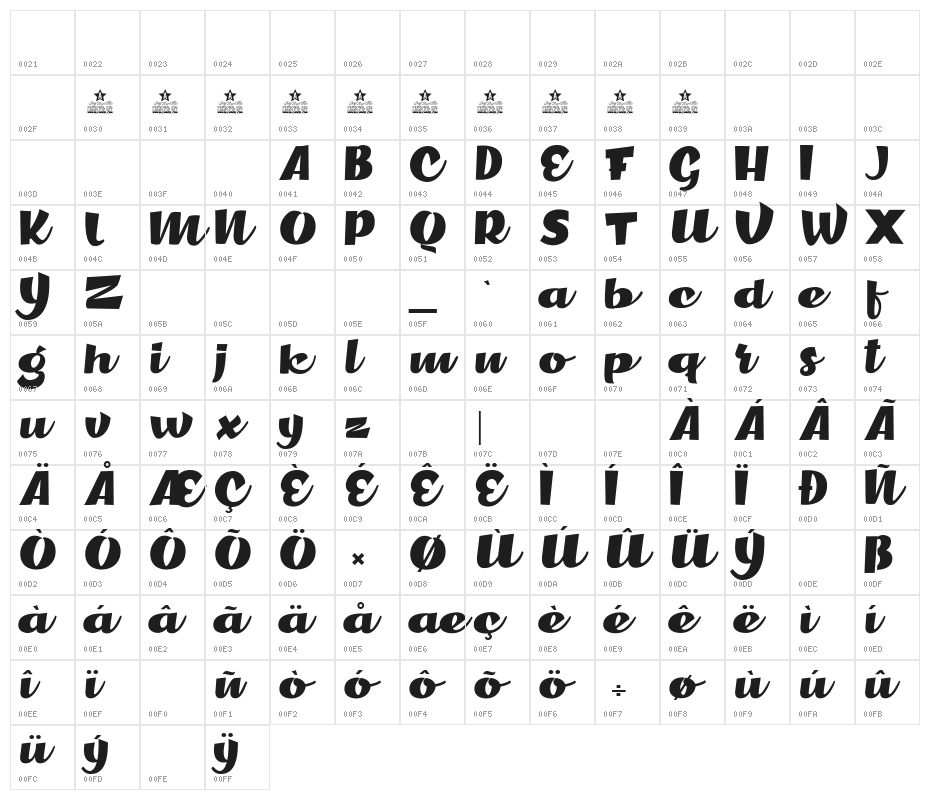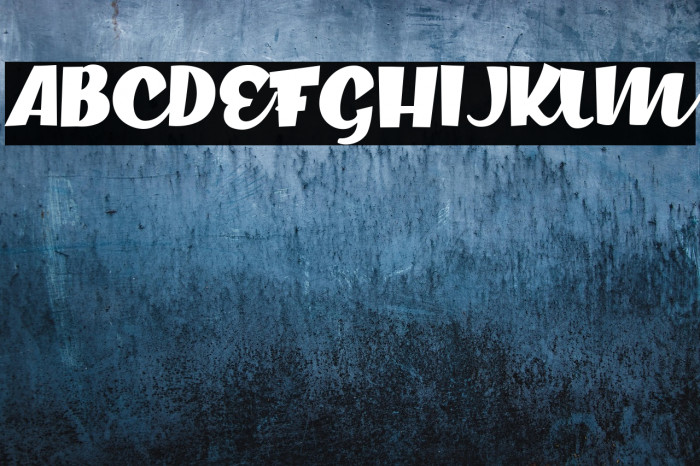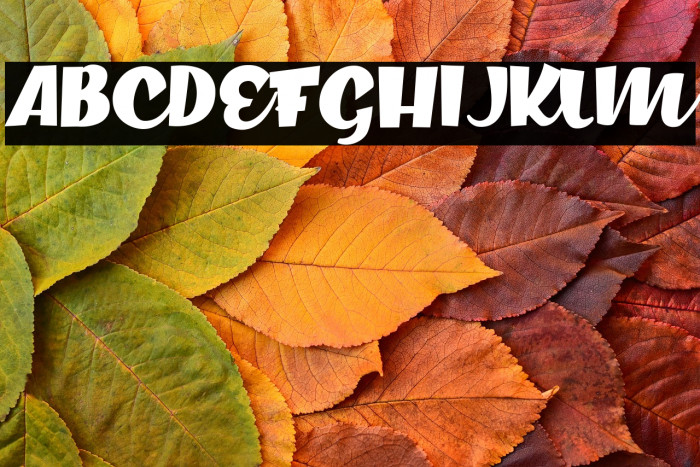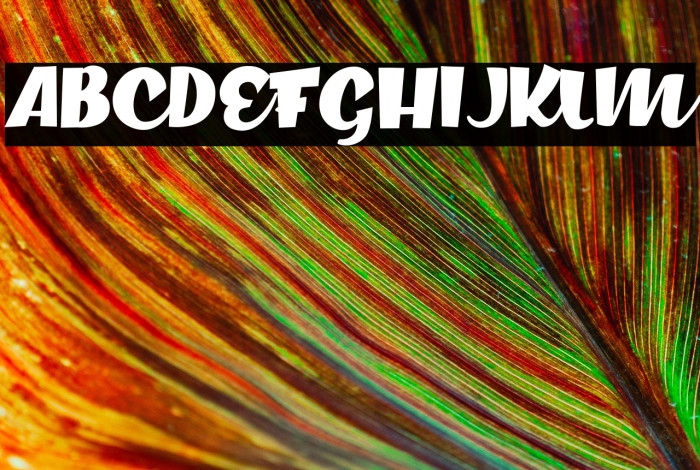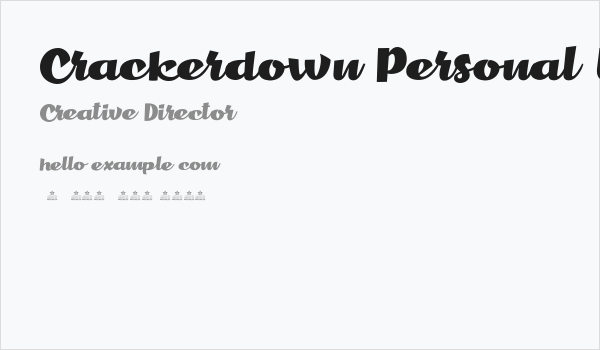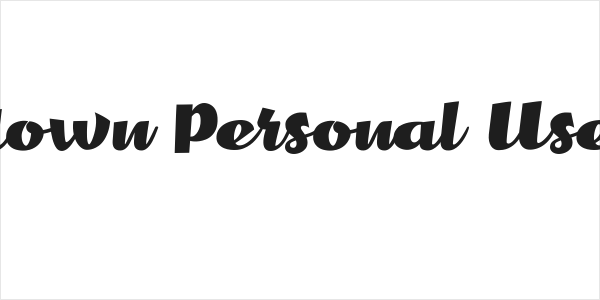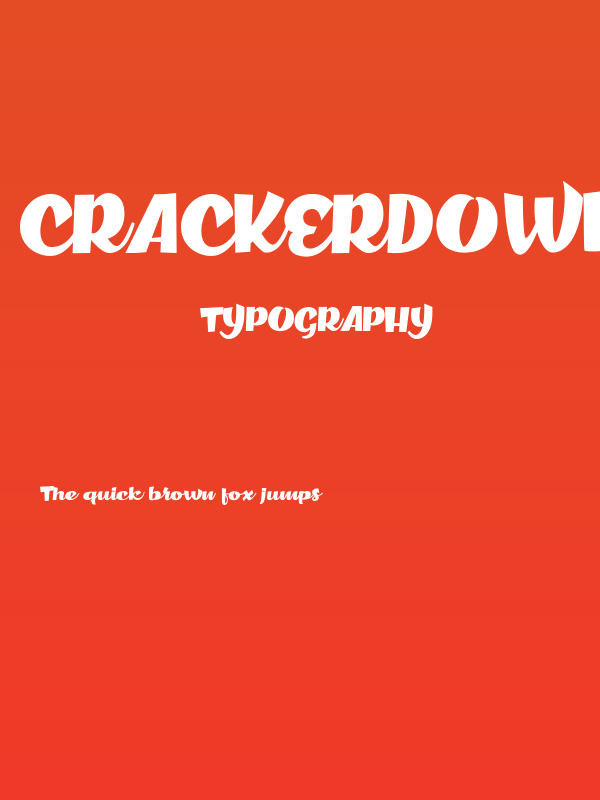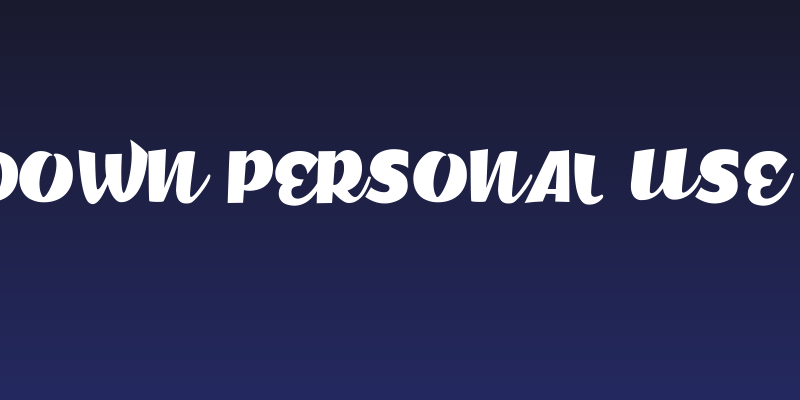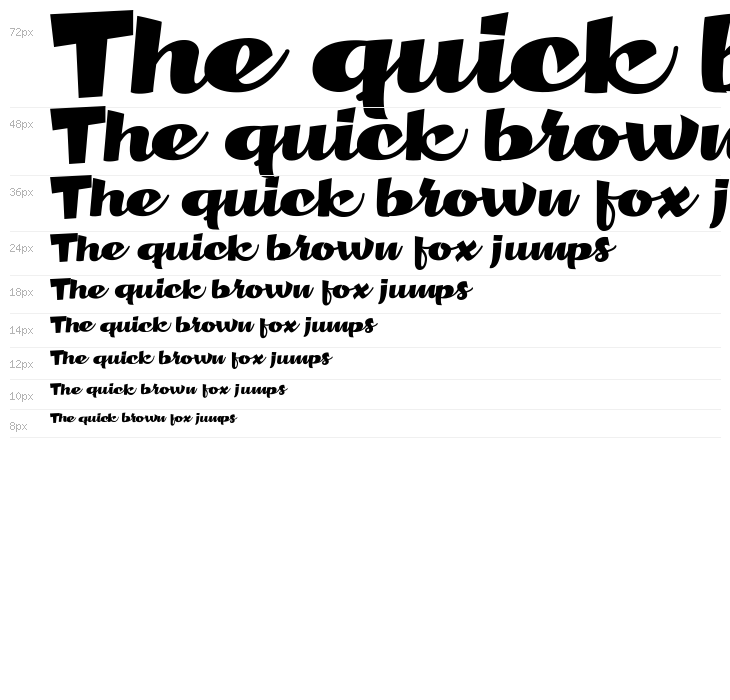
Crackerdown Personal Use Regular Font
Crackerdown Personal Use Regular Description
This font features a bold and dynamic style with a strong presence. The characters are designed with a slight slant, giving them a sense of motion and energy. The strokes are thick and consistent, creating a robust appearance. The uppercase letters are particularly striking, with sharp angles and a playful flair. The lowercase letters maintain the same boldness, with some characters having unique, exaggerated features that add to the overall whimsical feel. The numbers and special characters are equally bold, ensuring consistency across all elements.
| Proposed Projects | Ideal for projects that require a strong visual impact, such as posters, logos, and branding materials. It can also be used for headlines and titles in magazines or websites that aim for a bold and modern look. |